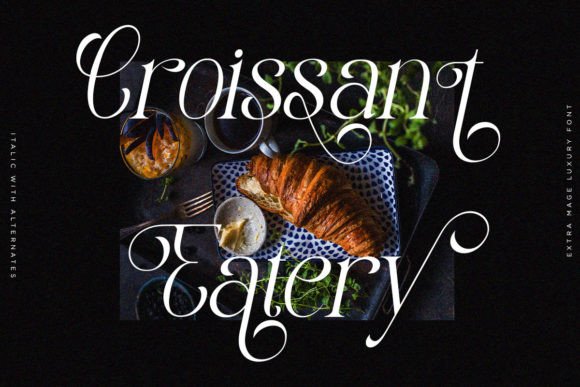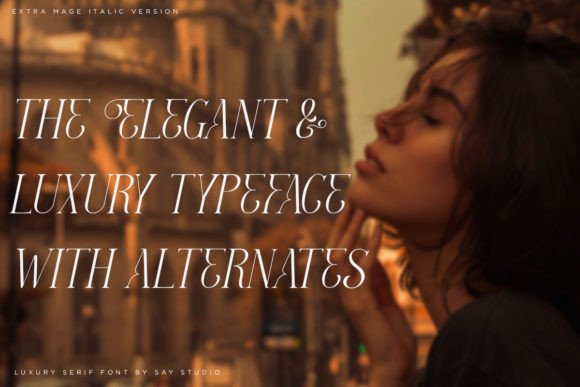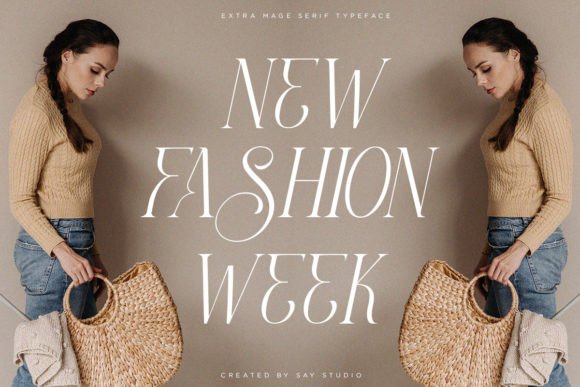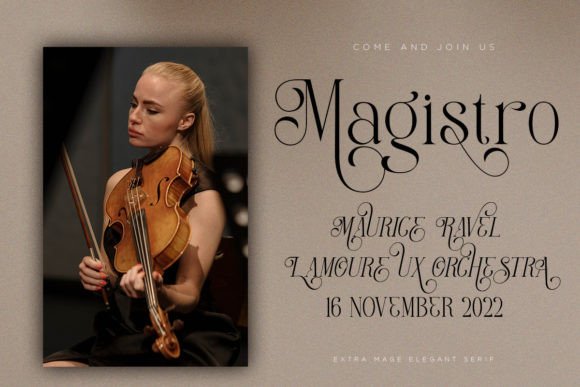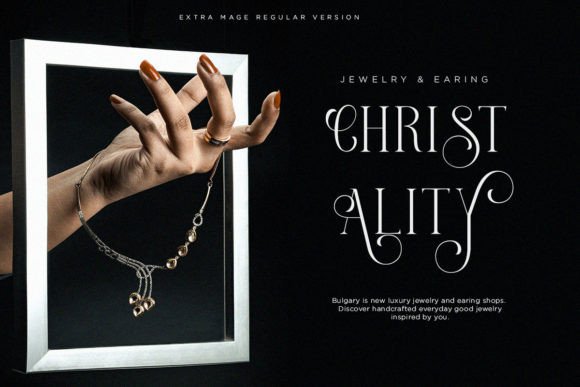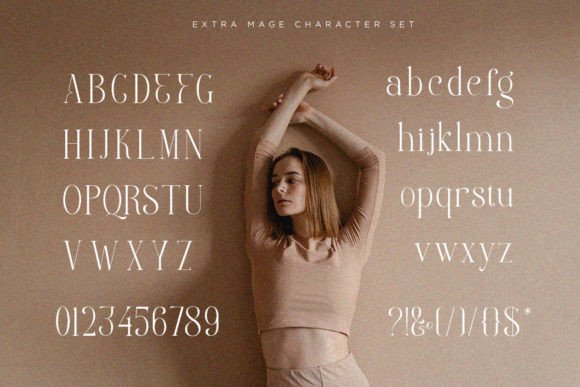
Unleashing the Magic of Extra Mage Font
Have you ever found yourself pouring over a beautifully designed magazine or luxury brand, mesmerized by the elegant typography and the way the words seem to dance on the page? For designers, those ‘aha’ moments are a reminder that the right font can elevate a project from mere functionality to breathtaking beauty.
That’s where Extra Mage Font comes in – a stunning serif font that embodies both femininity and masculinity, perfect for projects that require a touch of luxury and sophistication. With its intricate details and PUA encoding, designers can unlock the full potential of this versatile font, using it to create captivating headings, logos, and branding that leave a lasting impression.
- Unique Characteristics: Extra Mage Font features a magical and mystical theme, with intricate designs and ornaments that evoke a sense of fantasy and wonder.
- Character Set: The font includes a comprehensive character set, including uppercase and lowercase letters, numbers, punctuation marks, and special characters, making it suitable for a wide range of applications.
- Style Options: Extra Mage Font offers two font styles: Regular and Bold, allowing users to choose the perfect style to match their design needs.
Designer Review: Extra Mage Font
First impressions matter, and the Extra Mage Font has a ✨ magical vibe to it. The font’s fantasy-inspired design elements, such as the use of mystical symbols and whimsical flair, make it perfect for projects that need a touch of magic. The font’s versatility shines through in its ability to work well for both digital and print projects.
- ✨ Unique and creative design elements
- ✨ Versatile and suitable for various projects
- ✨ High-quality font files for seamless integration
- ⚠️ Limited font sizes and weights available
- ⚠️ Not ideal for projects requiring a more neutral or serious tone
Overall, the Extra Mage Font is a great choice for designers looking to add a touch of magic to their projects. While it may have some limitations, its unique design elements and versatility make it a valuable addition to any designer’s toolkit. With a bit of creativity, the possibilities are endless with this font.
Tips for Getting the Most Out of Extra Mage Font
Here are some tips to help you get the most out of Extra Mage Font:
- Use it for titles and headings to add a touch of fantasy and magic.
- Combine it with other fonts to create a unique and eclectic look.
- Experiment with different font sizes and styles to add emphasis and visual interest.
Here are some common use cases for Extra Mage Font:
- Fantasy and sci-fi book covers.
- Video game and animation titles.
- Magazine and newspaper headlines.
Alternatives to Extra Mage Font for Designers
1. Carolyna Pro
Carolyna Pro is a modern, elegant script font that is ideal for creating a sophisticated and luxurious look. It’s perfect for designers who want to add a touch of sophistication to their designs without being too bold or overpowering. Unlike Extra Mage Font, Carolyna Pro is more refined and has a softer feel to it.
Great Vibes is a beautiful, handwritten font that is great for creating a fun and playful atmosphere. It’s perfect for designers who want to add a touch of whimsy and personality to their designs. While Extra Mage Font has a more mystical and magical feel, Great Vibes has a more carefree and laid-back vibe.